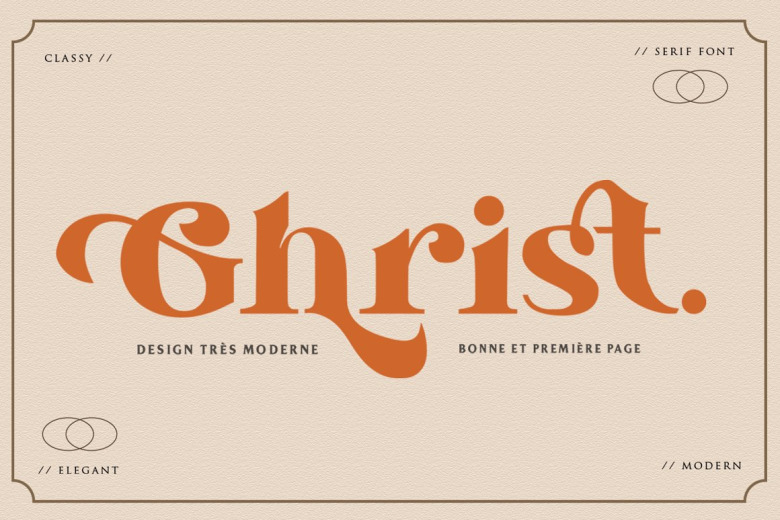
Ghrist Font
Ghrist is a serif modern and classic typeface that has own unique style & modern look. Made with many alternative characters to make it easier for you to do various design projects and give you fun while typing.